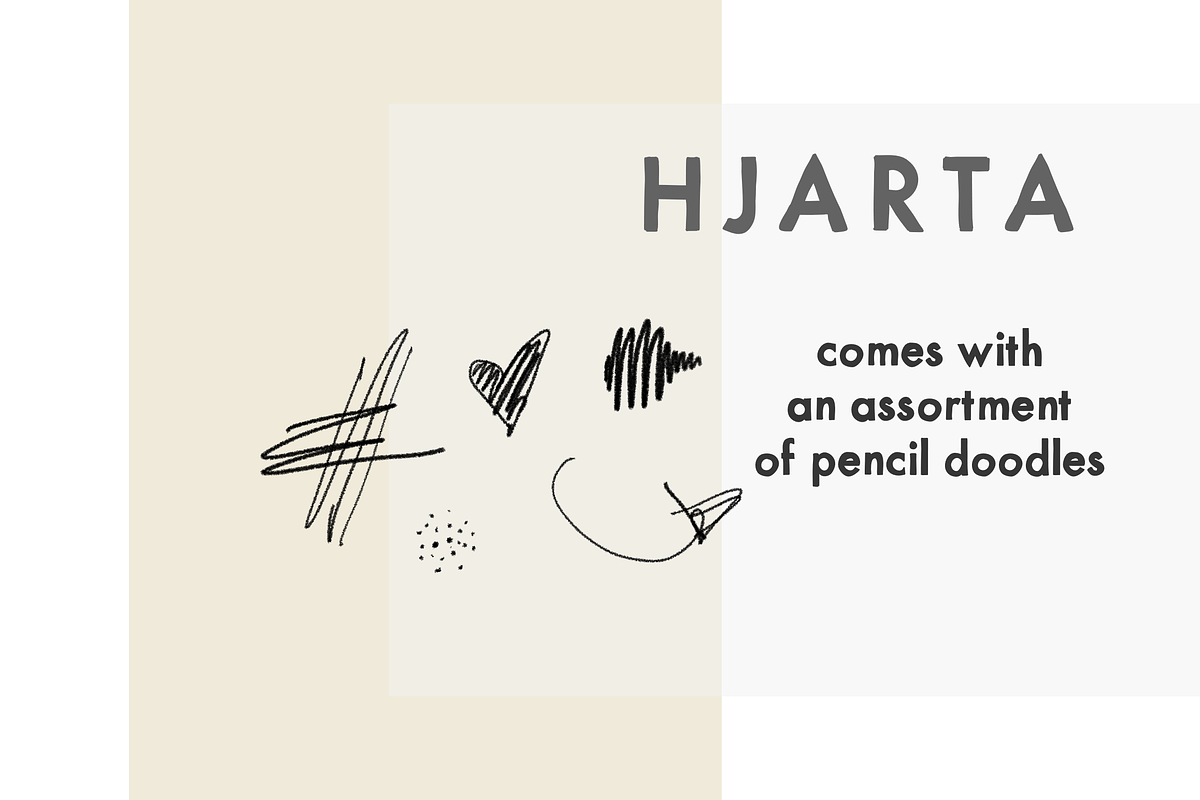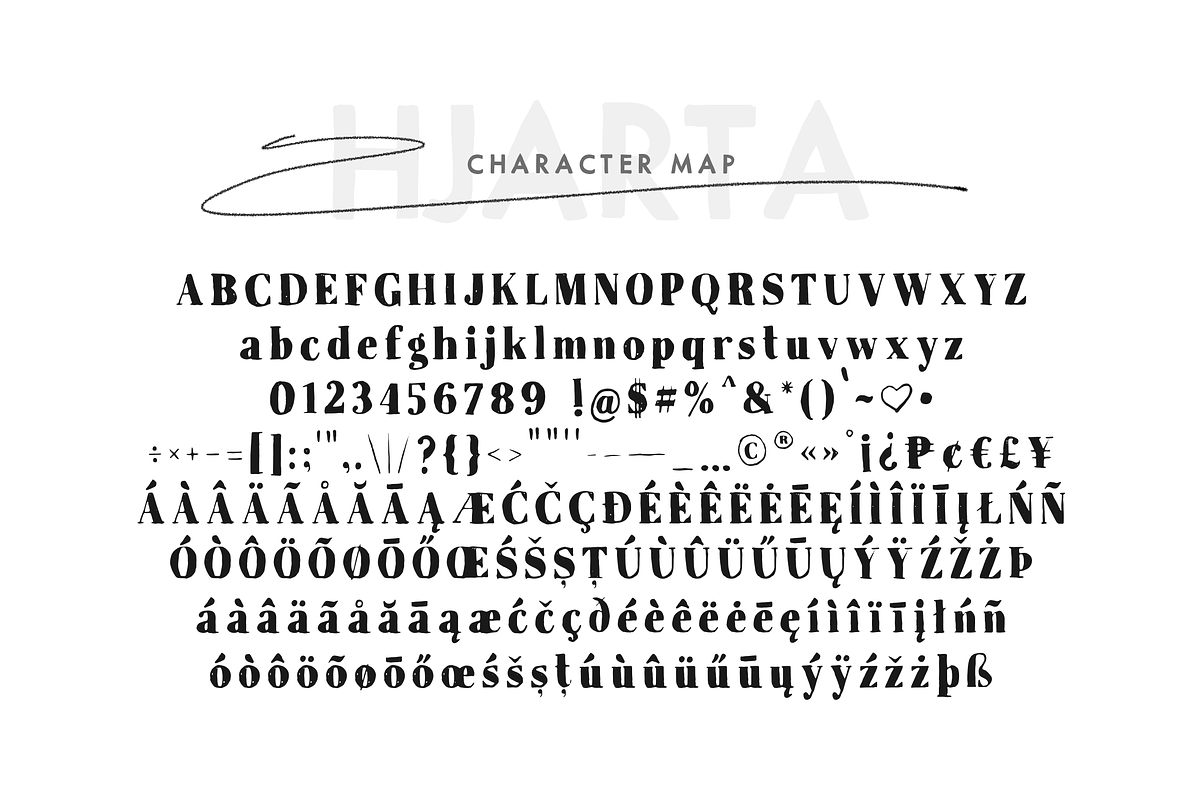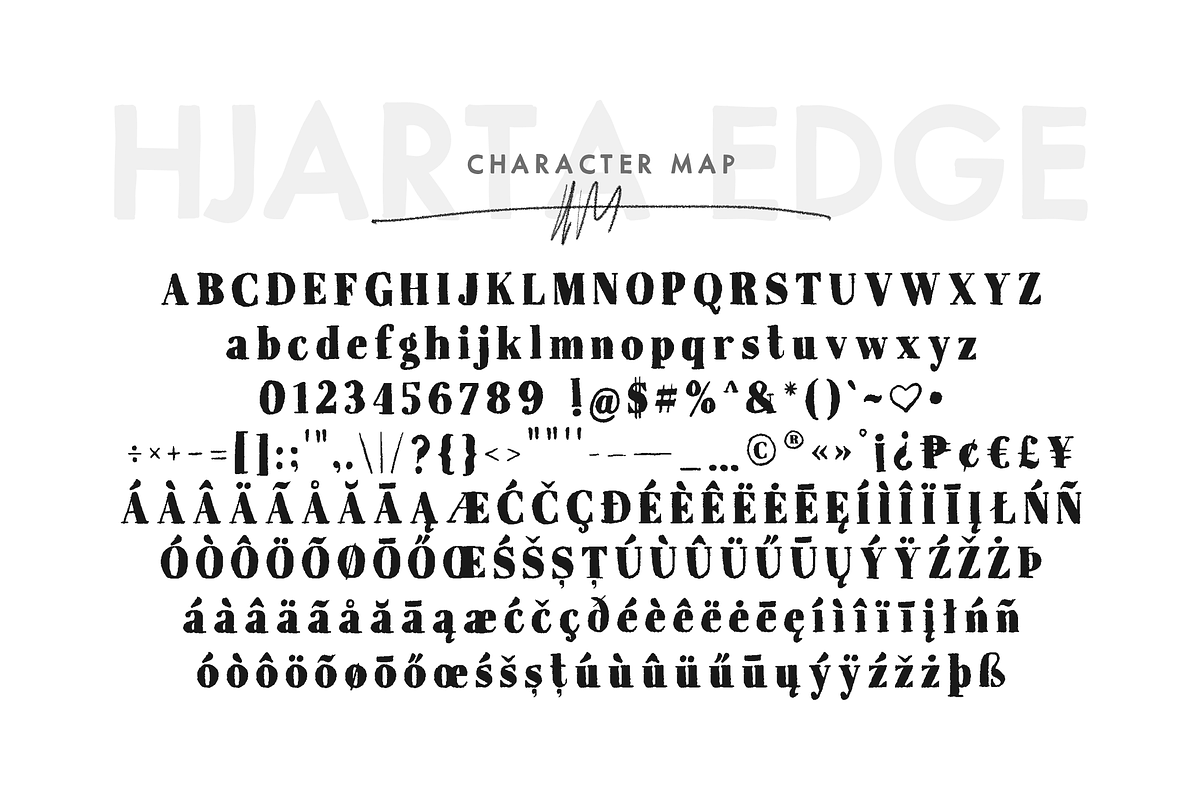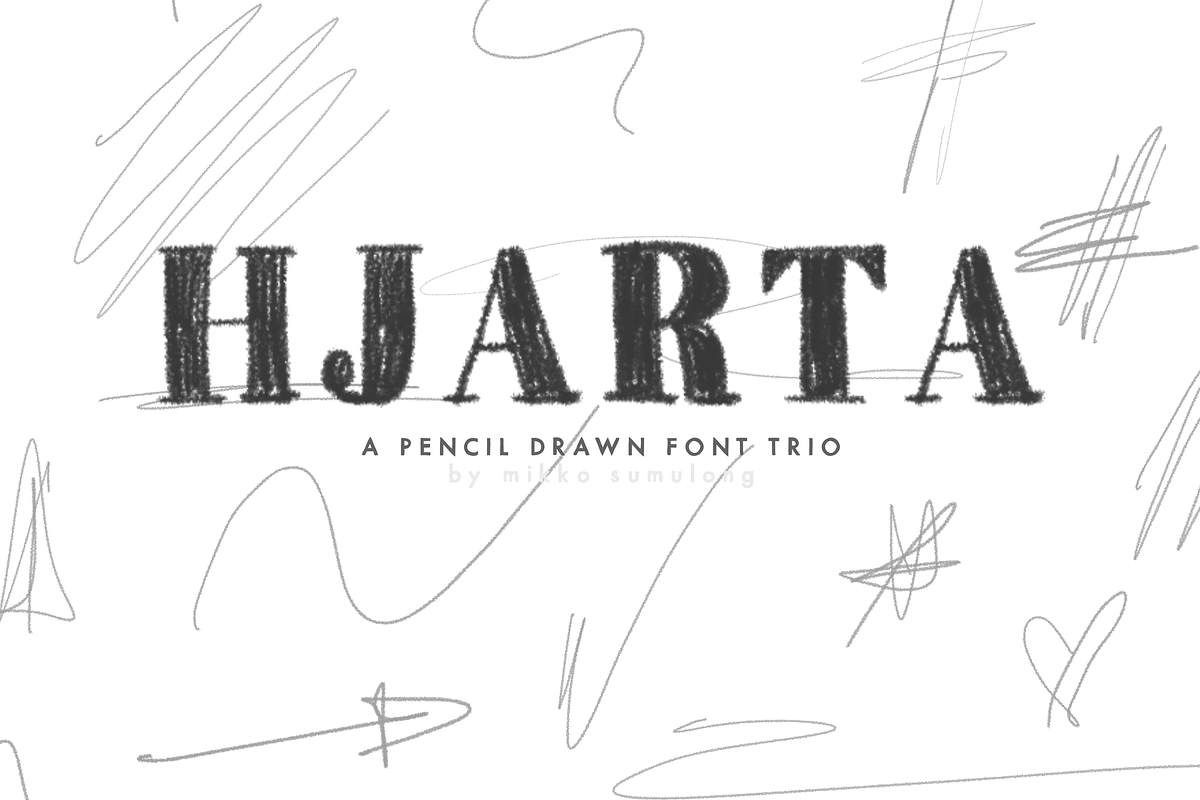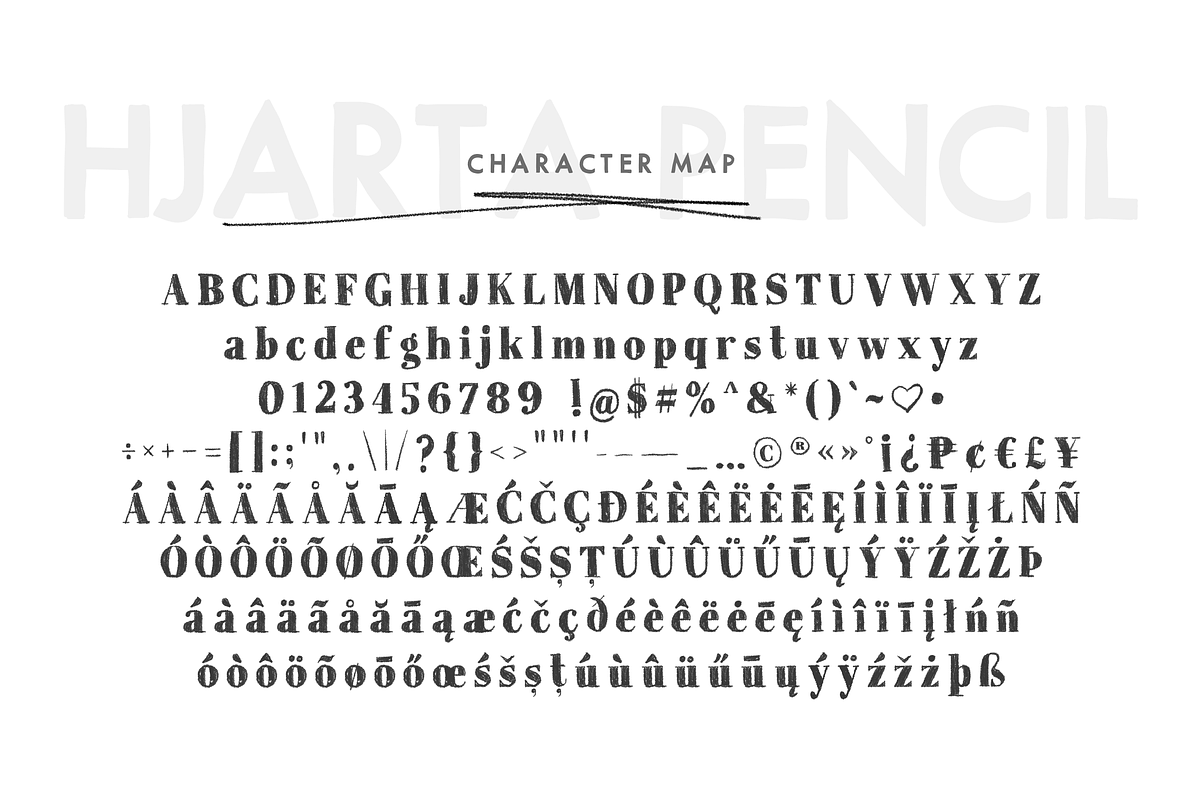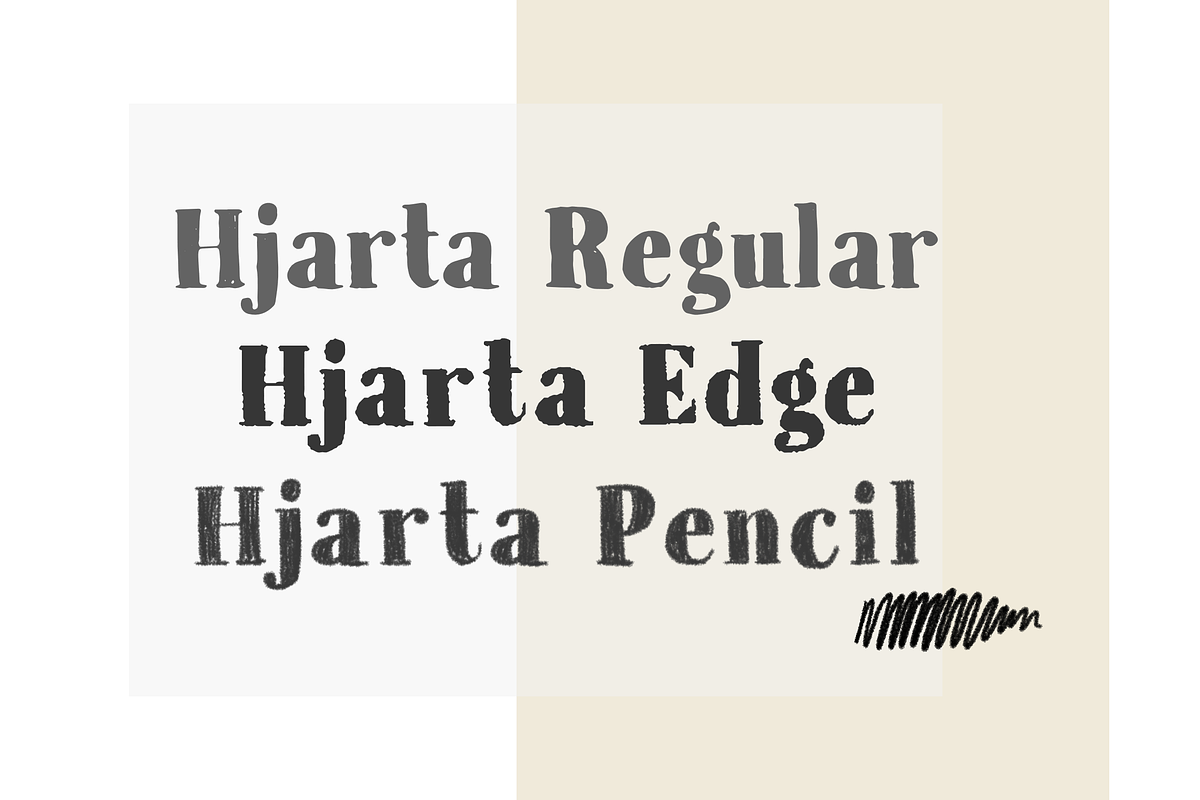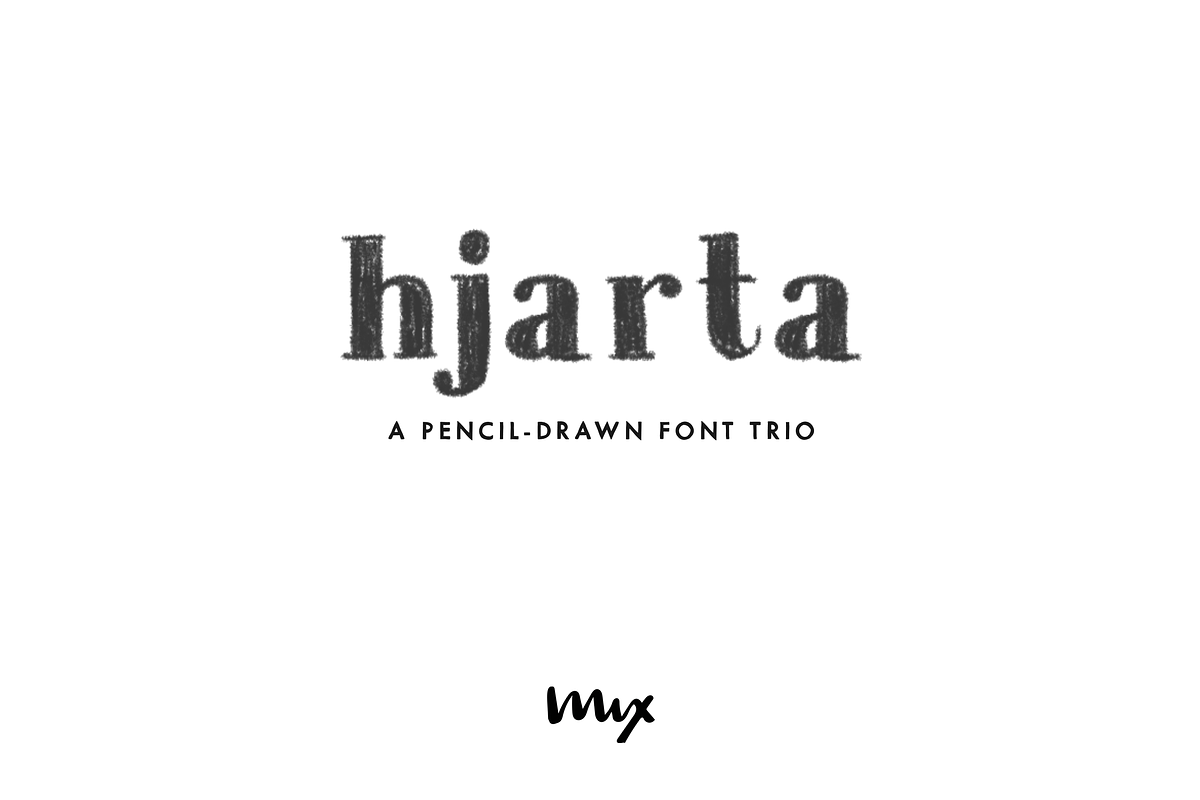
Hjarta - A Pencil Drawn Font Trio
MIX HJARTA was handwritten with a lead pencil, then digitized and converted into this trio of fonts. This font is perfect for handmade and DIY themed projects.
Mix Hjarta Pencil - OpenType SVG font of the original pencil drawn glyphs
Mix Hjarta Edge - OTF of the rough standard vector version
Mix Hjarta Regular - OTF of the slightly cleaned up standard vector font